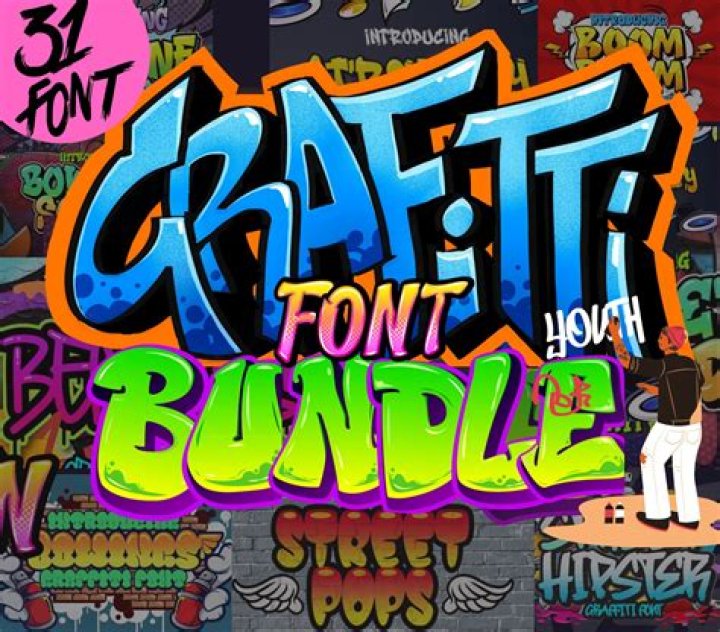
Is there a graffiti font in Photoshop?
Step 1. Select the “for” graffiti text layer and go to Layer > Layer Style > Blending Options… to apply the following layer style to the graffiti letter font. In Blending Options, use these settings: Advanced Blending: 0%
What font is used in graffiti?
Urban Decay Urban decay is a handmade brush font that creator Zofos made to ‘celebrate graffiti, urban exploration, street calligraphy and inner city living. ‘ This font is one of the best graffiti fonts we’ve seen, with a rugged authenticity that will bring an urban feel to your projects.
Which font is most like graffiti?
Now, let me share with you a selection of the best graffiti fonts we’ve got.
• Okami – Brush Font (OTF)
• Handstyle Graffiti (TTF, OTF)
• Minority Typeface (TTF, OTF)
• Crazy Marker Graffiti Font (TTF, OTF)
• Ember Typeface (OTF)
• Desperado St Graffiti Font (TTF, OTF)
• In Knots Font (TTF, OTF)
• Rolingline Typeface (TTF, OTF)
How do you make a graffiti font in Photoshop?
How to Make a Graffiti Text Effect in Photoshop
1. Open the wall background image in Photoshop.
2. Select the Type Tool (T) and type any text you like.
3. With the text layer active go to Layer > Layer Style > Blending Options.
4. Check the Bevel & Emboss Option and click on the Gloss Contour thumbnail to open the Contour Editor.
How do I Graffiti an image in Photoshop?
How to Turn a Photo into Graffiti with Photoshop
1. Make a Threshold adjustment layer. Threshold adjustments turn layers into pure black and white.
2. Set to Multiply.
3. Add some color.
4. Let the wall show through.
5. A touch of blur.
6. Graffiti Video Tutorial.
How do you graffiti text in Photoshop?
How do you make text look like spray paint in Photoshop?
How to create spray-painted text in Photoshop
1. Step 1: Open your background image.
2. Step 2: Add your text.
3. Step 3: Resize and reposition the text with Free Transform.
4. Step 4: Lower the Fill value of the Type layer to 0%
5. Step 5: Add a Drop Shadow layer effect to the Type layer.
How do you make a picture look like spray in Photoshop?
Open the image you want to convert to a spray painted one in Photoshop.
1. Using your preferred method select your subject.
2. With the selection active, click on the Add Layer Mask icon on the Layers Panel.
3. Go to Layer > Smart Objects > Convert to Smart Object.
4. Go to Filter > Filter Gallery.